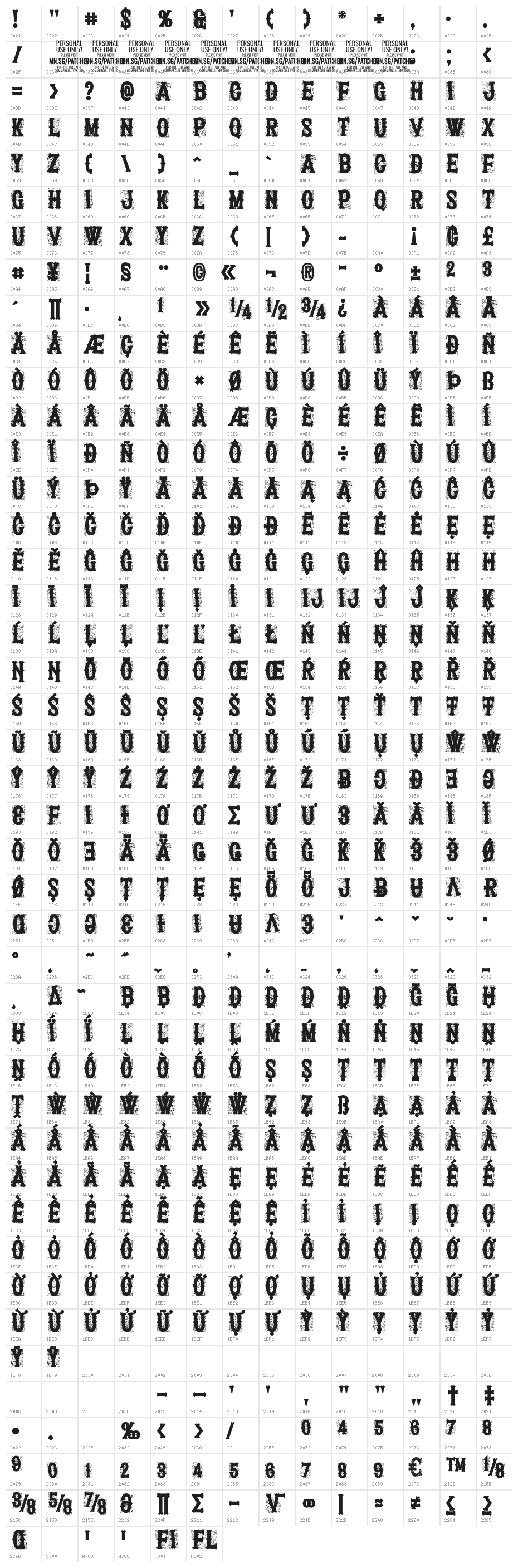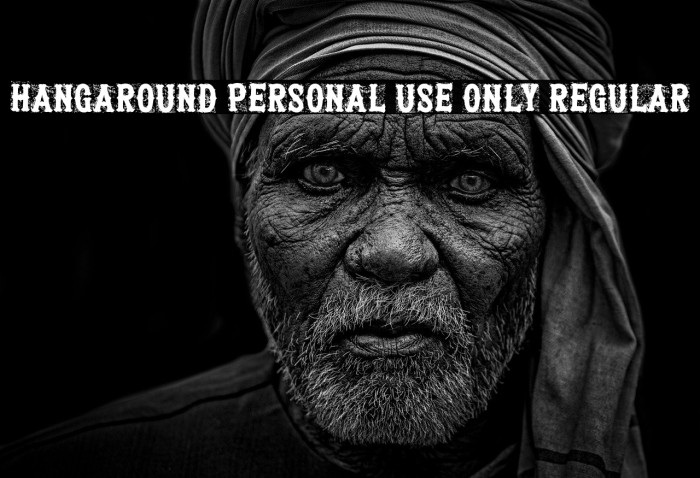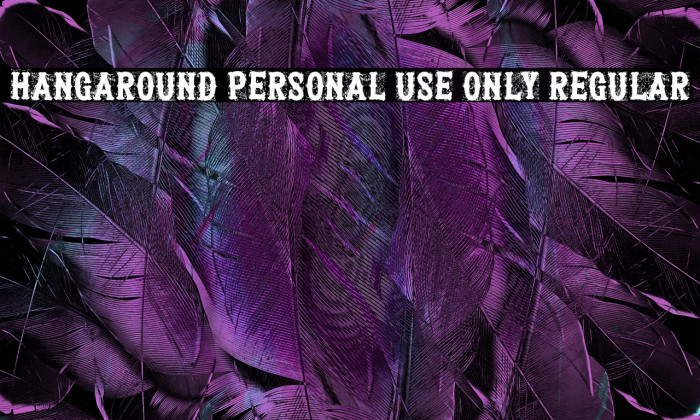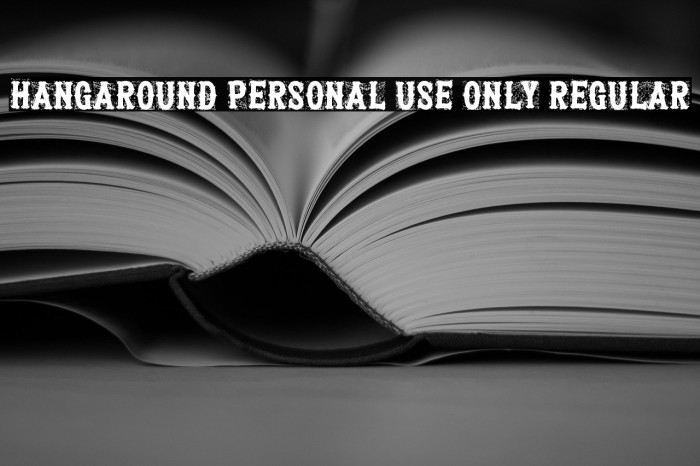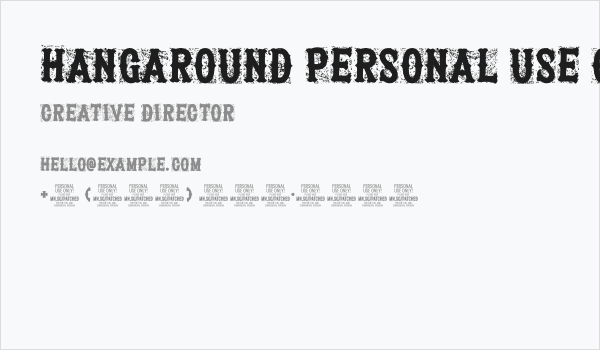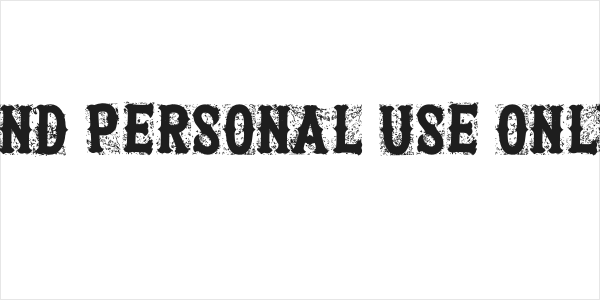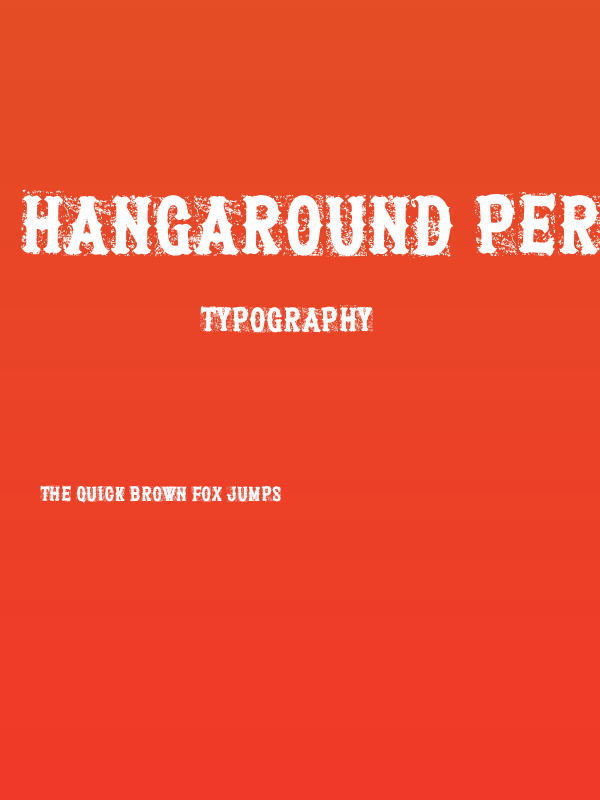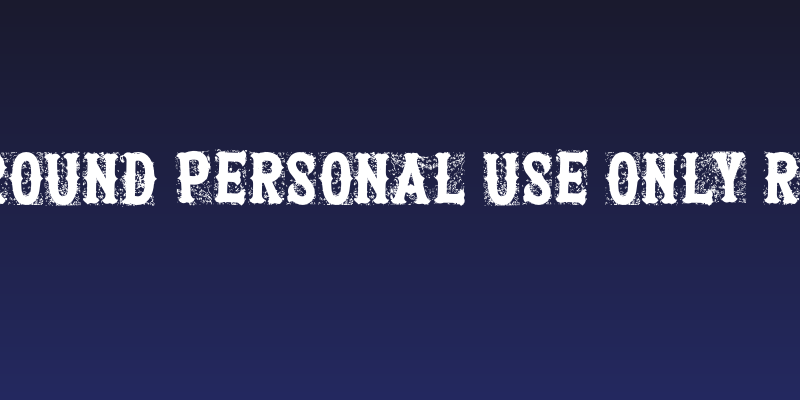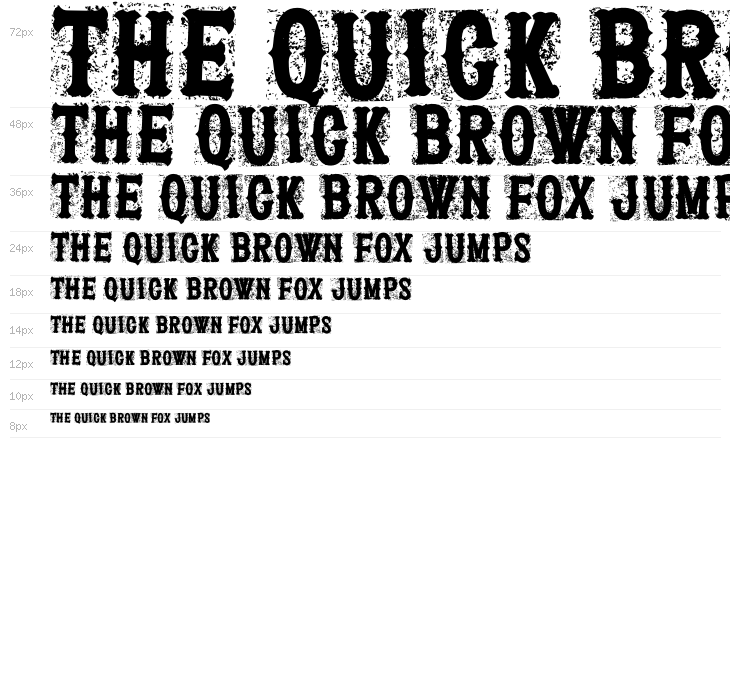
Hangaround PERSONAL USE ONLY Regular Font
Hangaround PERSONAL USE ONLY Regular Description
This font features a rugged, distressed appearance with a bold and impactful style. Each character is designed with a textured, grunge effect, giving it a worn and weathered look. The uppercase letters are prominent and commanding, while the lowercase letters maintain the same distressed aesthetic. The numerals and special characters follow suit, adding to the cohesive, gritty feel of the typeface. This font is ideal for projects that require a strong, vintage, or industrial vibe, making it perfect for posters, album covers, or branding that seeks to convey a sense of edginess and authenticity.
| Proposed Projects | Ideal for posters, album covers, branding, and any project needing a vintage or industrial vibe. |